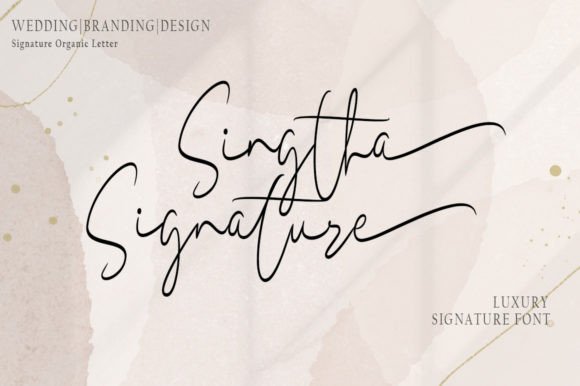
Introducing Sigtha Signature Font: The Epitome of Elegance and Class for Your Creative Endeavors
Immerse yourself in the world of Sigtha Signature, an enchanting script font that personifies grace and sophistication. This meticulously crafted font was born from the desire to provide designers with a tool that breathes life into their creations, allowing them to express their unique artistic vision with utmost elegance.
Sigtha Signature's fluid strokes and delicate curves evoke a sense of timeless beauty and charm. Its meticulously balanced letterforms create a visually captivating aesthetic that commands attention, whether in logos, branding, invitations, or any other design project.
With Sigtha Signature, you'll find the perfect equilibrium between legibility and artistry. Each character is designed to strike a harmonious balance, ensuring that your words are not just read but experienced. Whether you're creating heartfelt love letters, elegant wedding invitations, or eye-catching social media posts, Sigtha Signature will elevate your designs to new heights of sophistication.
Unleash the Power of Sigtha Signature: A Font That Speaks Volumes
Sigtha Signature isn't just a font; it's a versatile tool that adapts seamlessly to a wide range of creative endeavors. Its delicate strokes lend themselves perfectly to branding projects, adding a touch of refinement and professionalism that sets your brand apart from the ordinary.
In the realm of invitations, Sigtha Signature transforms ordinary words into works of art. Whether it's a wedding invitation, a baby shower announcement, or an exclusive event invitation, this font will infuse your message with an air of timeless elegance, creating a lasting impression on your guests.
Sigtha Signature's versatility extends to social media, where it shines as the perfect font for crafting captivating posts and stories that demand attention. Its ability to evoke emotions and create a visual impact makes it the ideal choice for businesses and individuals looking to make a statement on platforms like Instagram, Facebook, and Pinterest.
Experience the Sigtha Signature Difference: A Font That Inspires
With Sigtha Signature as your creative companion, you'll discover a font that fuels your imagination and propels your designs to new heights. Its timeless beauty and versatility make it a must-have for designers seeking to create sophisticated and memorable designs.
Join the ranks of creative professionals who have embraced Sigtha Signature as their go-to font for expressing their artistic vision. Let this elegant script font elevate your designs, leaving an unforgettable impression on your audience.
Unleash the magic of Sigtha Signature today and embark on a creative journey that will redefine your design possibilities.